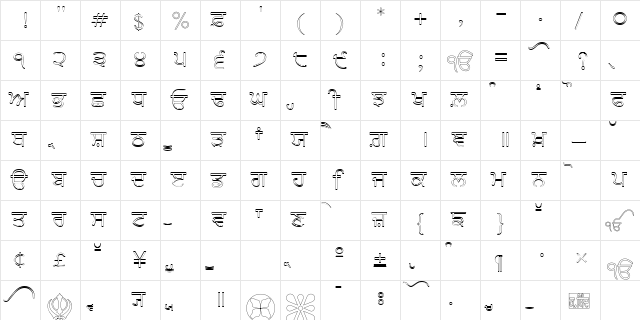
AmrOutlined Regular
Design Context for AmrOutlined Typeface
AmrOutlined is built around its visual character rather than neutral utility — its distinctive forms are designed to make an impression at display sizes.
Font Pairing: Pair with a clean neutral sans-serif for body copy to let AmrOutlined's character lead without overwhelming the composition.
Pro Tip: Treat AmrOutlined as the centrepiece of your typographic hierarchy. One strong heading set in a decorative face can carry an entire layout.